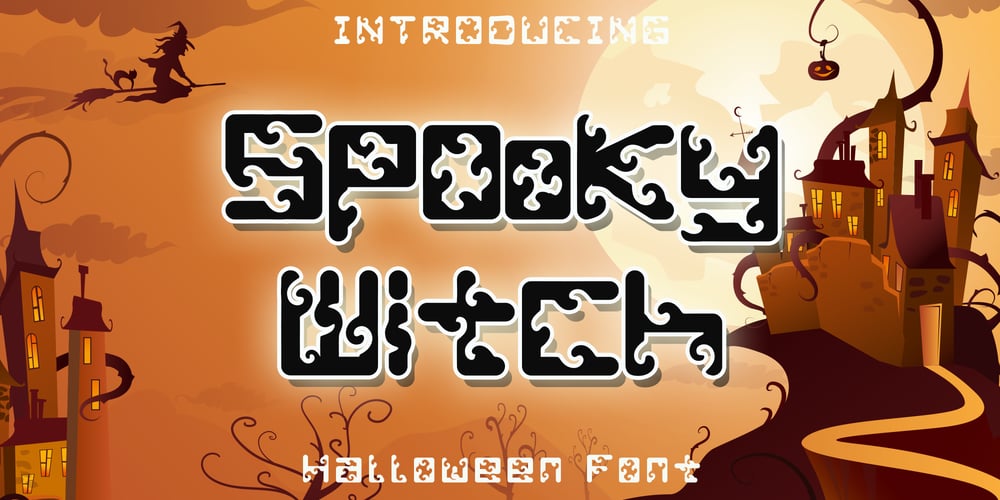
Spooky Witch
Spooky Witch font
Spooky Witch Font Family was designed by Harjuno Kristanto and published by Arkrist Letter. Spooky Witch contains 1 styles and family package options. Spooky Witch is the latest Halloween font from Arkrist Letter studio. A serif font designed with elegant characters, but looks scary.Spooky Witch font is suitable for design, logo, greeting card, invitation, etc.make your day more spooky with Spooky Witch!